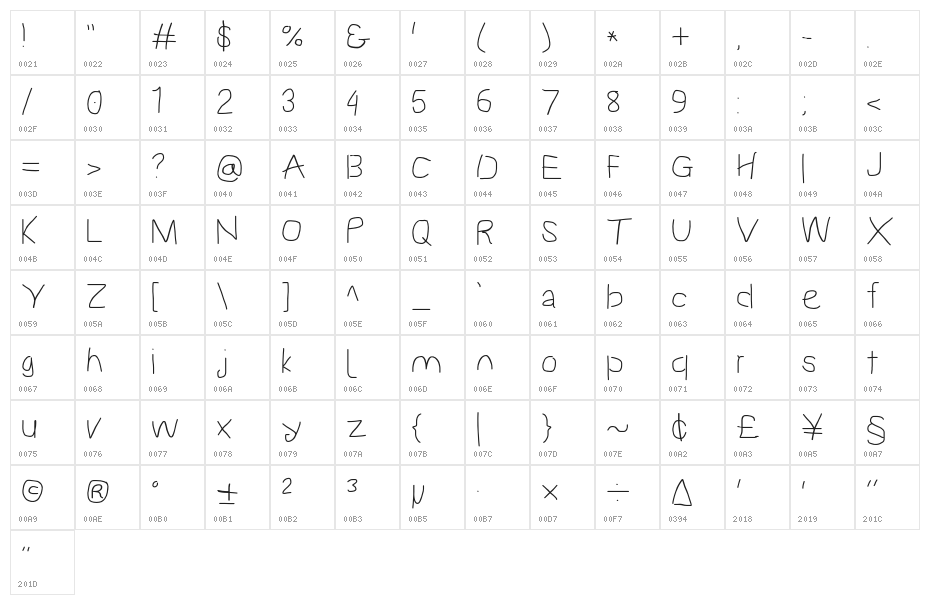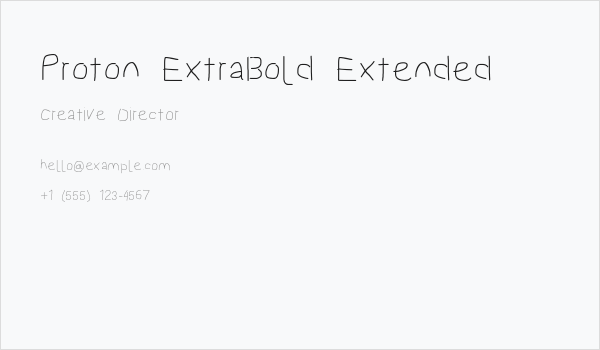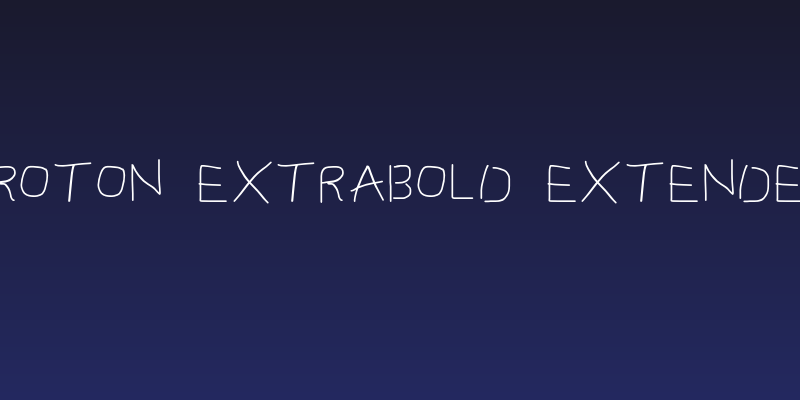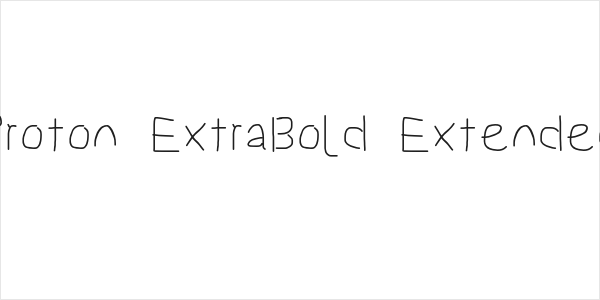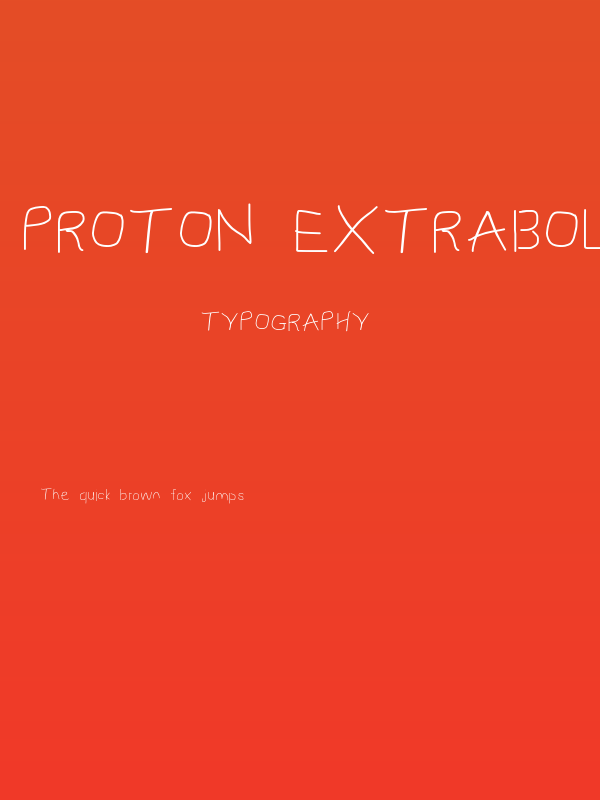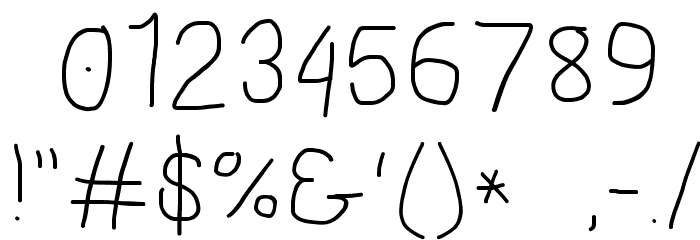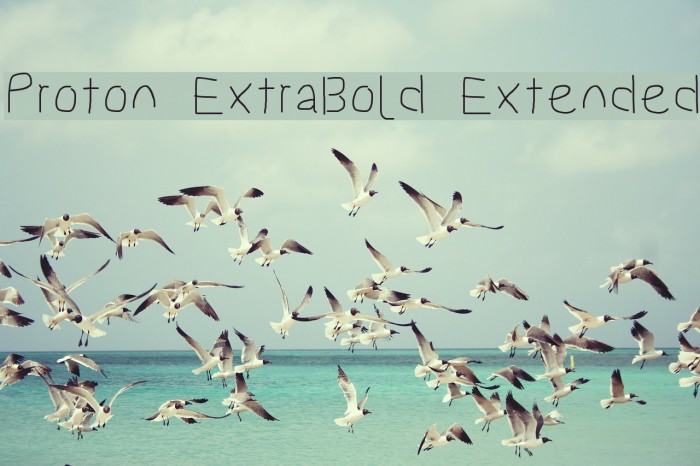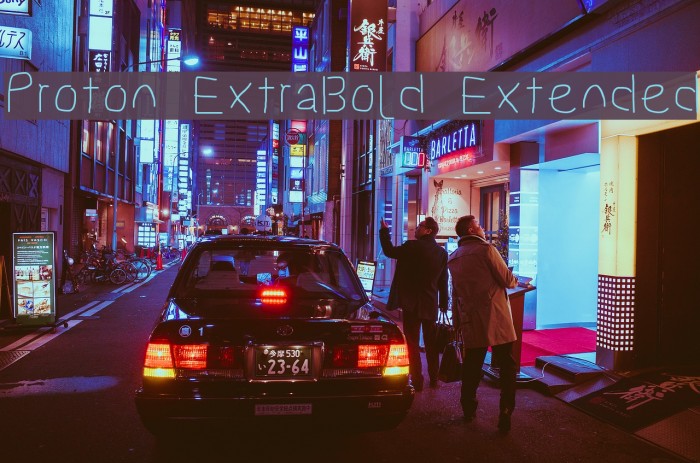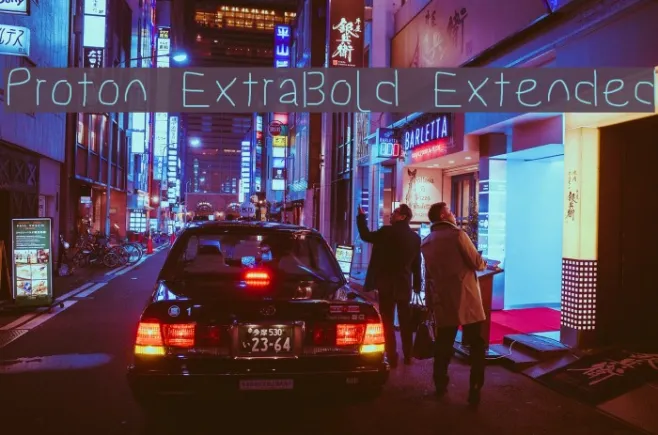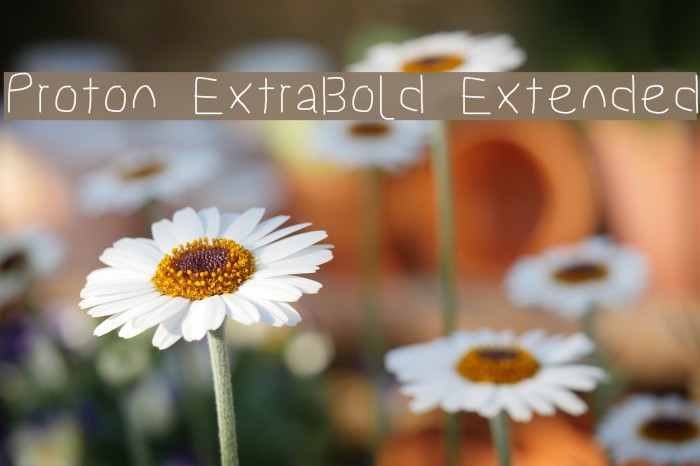
Proton ExtraBold Extended Font
Proton ExtraBold Extended Description
This font features a playful and casual handwritten style, characterized by its uneven strokes and slightly irregular letterforms. The uppercase letters are bold and prominent, while the lowercase letters maintain a consistent flow with a touch of whimsy. The numbers are clear and legible, matching the overall informal aesthetic. Special characters are creatively designed, adding to the font's unique personality. The extended width of the characters gives it a spacious feel, making it suitable for creative and informal projects.
| Proposed Projects | Ideal for children's books, casual invitations, greeting cards, and playful branding. |